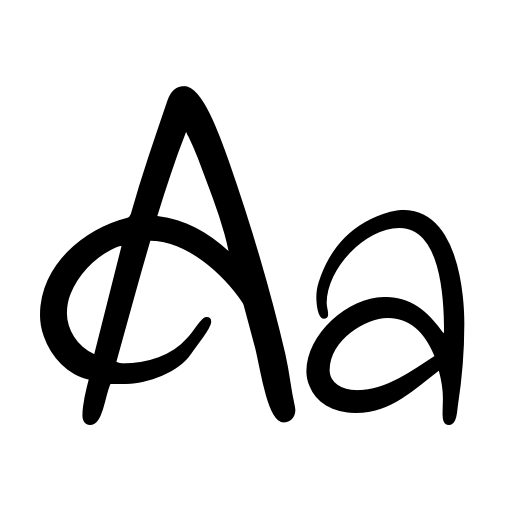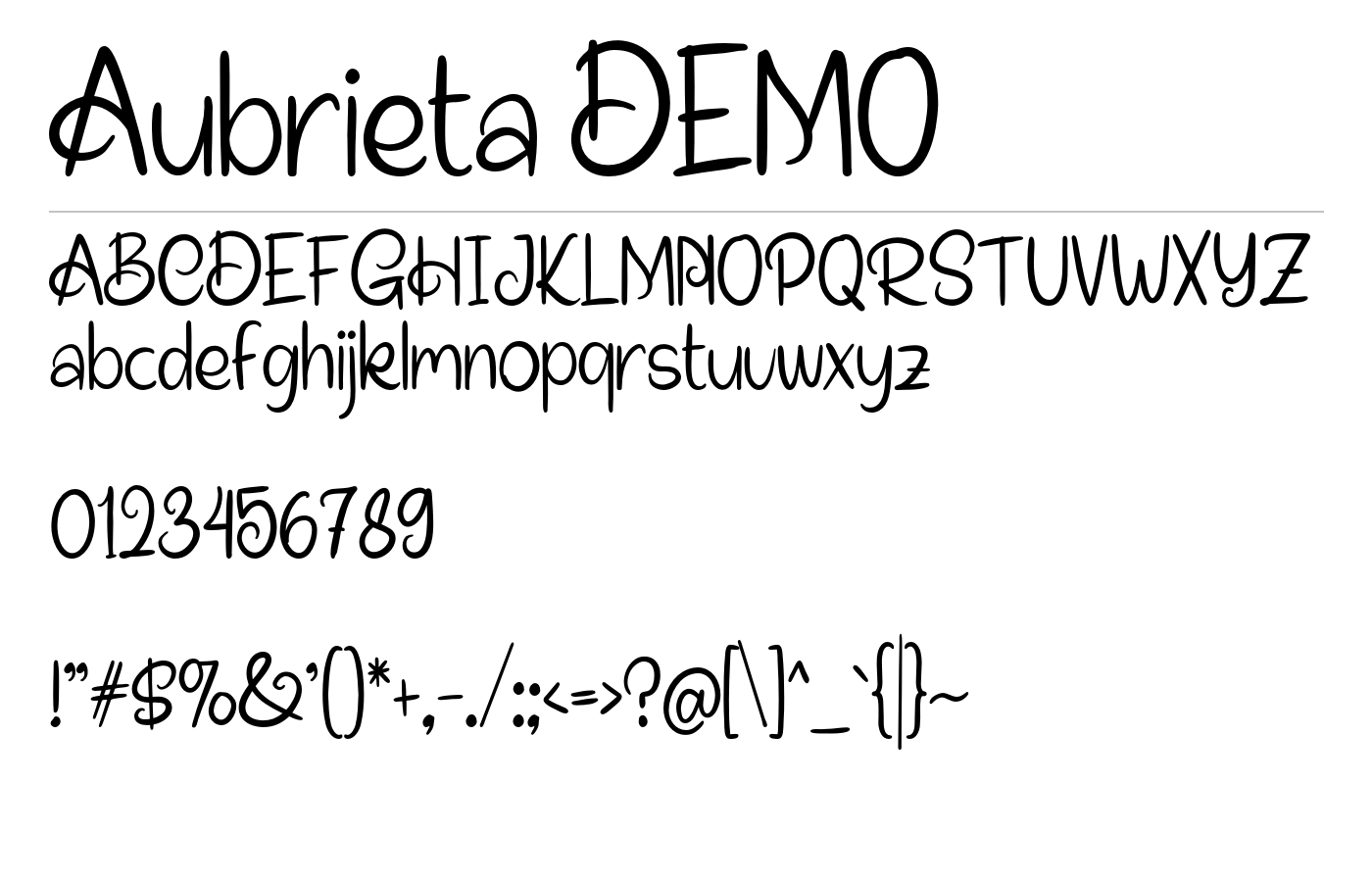
Aubrieta DEMO is a playful and whimsical handwritten sans serif font with a casual, light touch that brings a friendly and approachable vibe. Its irregular letterforms and slightly quirky character shapes make it ideal for creative projects, children’s materials, and informal branding where a fun and relaxed personality is desired. This font works well for headlines, invitations, and display uses that aim to convey warmth and charm.
Aubrieta DEMO Font